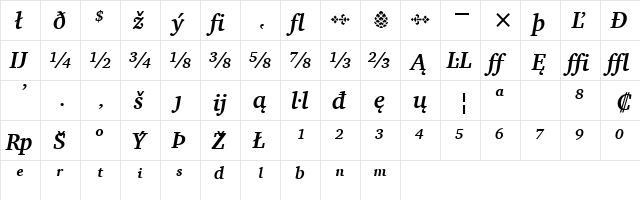
Charter BdExt BT Bold Italic Extension Font Preview
Design Context for Charter BdExt BT Typeface
Charter BdExt BT offers clean, dependable letterforms without strong stylistic allegiance, making it a practical choice for designers who need flexibility. Its italic angle brings a sense of urgency and motion to the letterforms. Its bold stroke weight gives it real presence on the page.
Pro Tip: Try Charter BdExt BT for annotation and caption copy alongside an upright companion — the contrast in angle creates a dynamic but ordered typographic system.